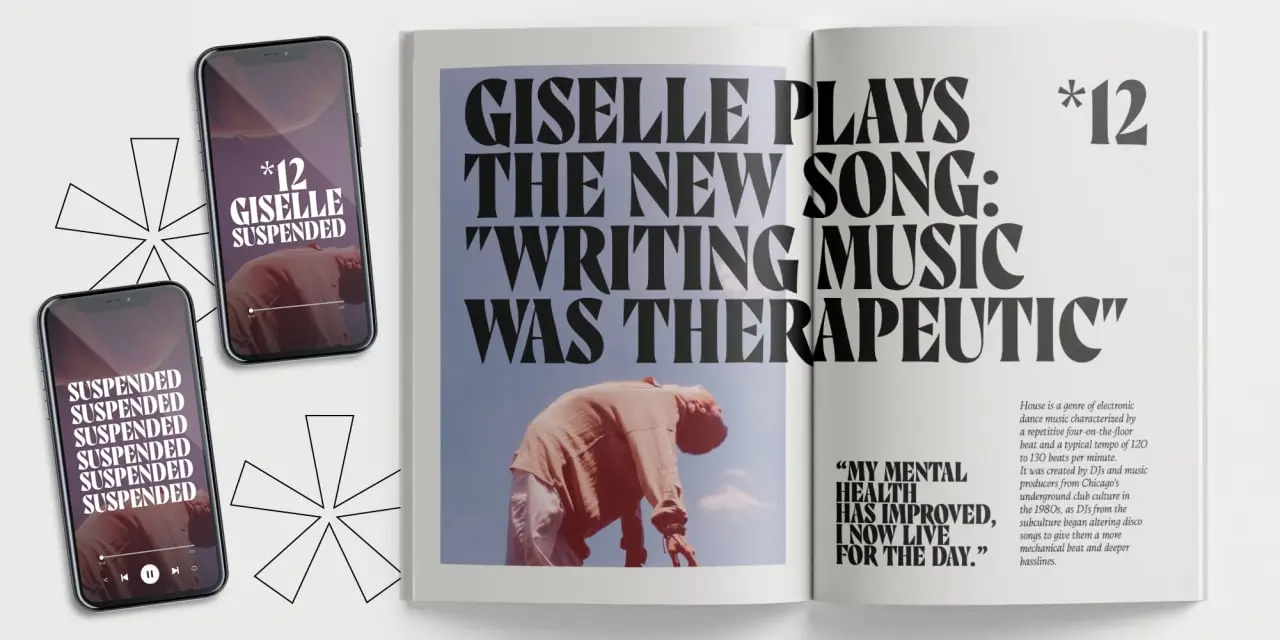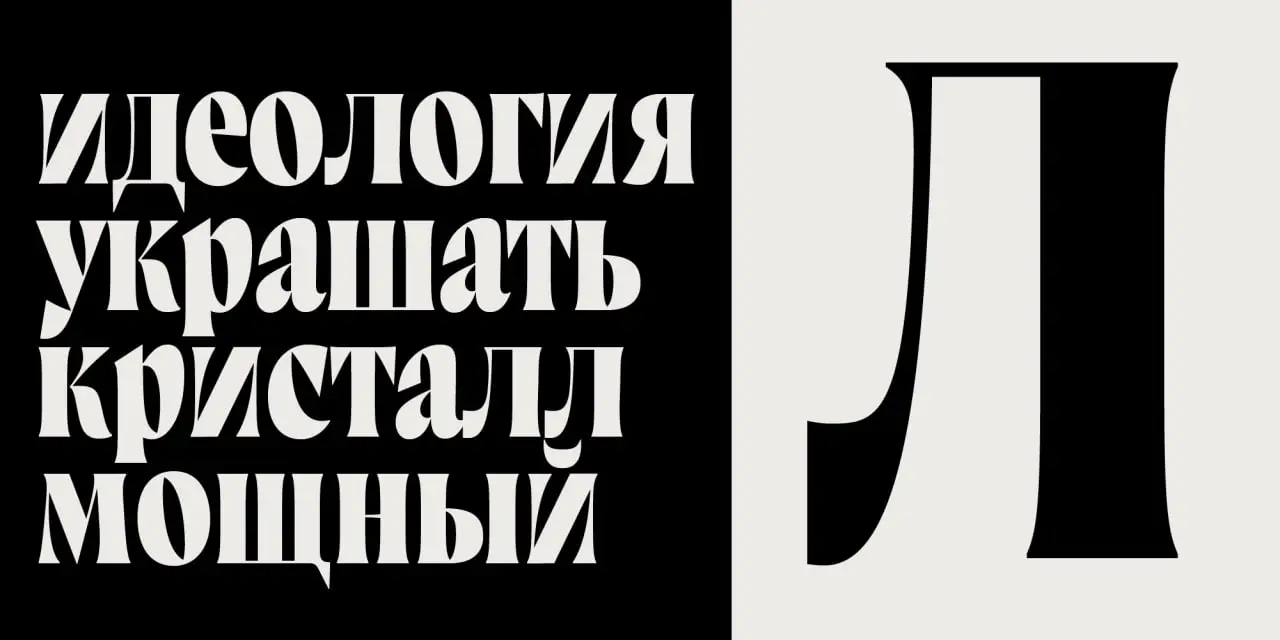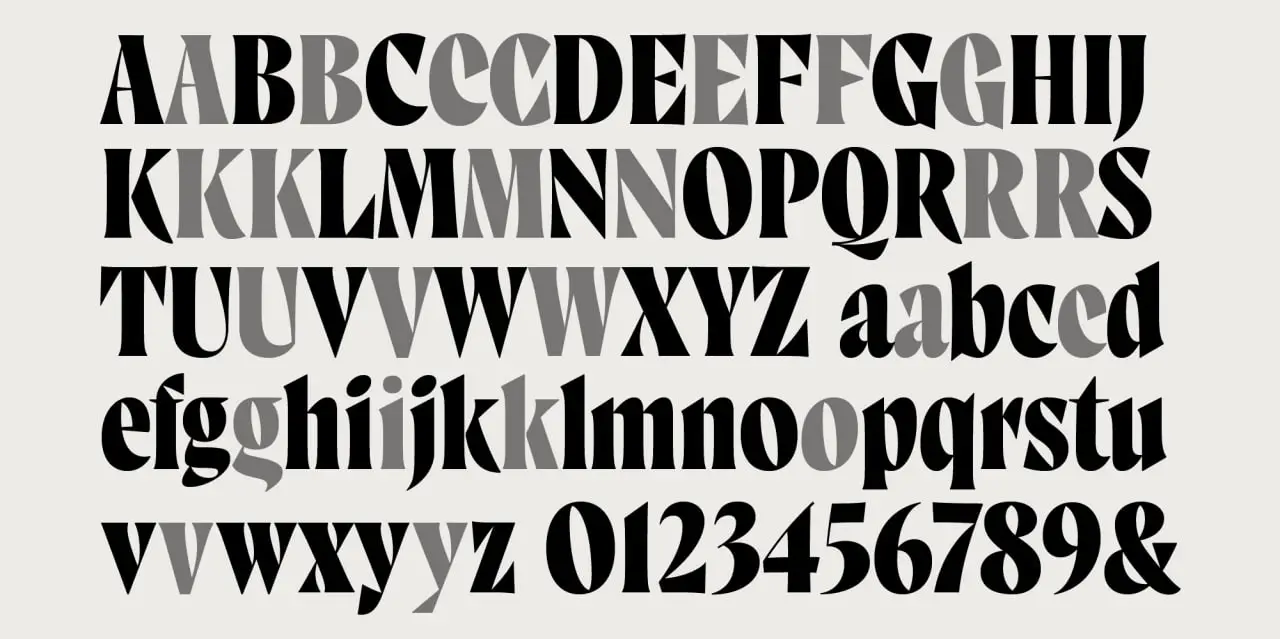
Marcovaldo Font
The Marcovaldo Font is a distinctive typeface that blends elegance with modernity, perfect for a variety of design projects. This font family includes multiple weights, providing versatility for both print and digital applications.
• Multiple weights for diverse design needs
• Clean and legible letterforms
• Stylish and contemporary aesthetic
This font is ideal for branding, logos, web design, and print materials. Its modern look makes it suitable for both corporate and creative projects.